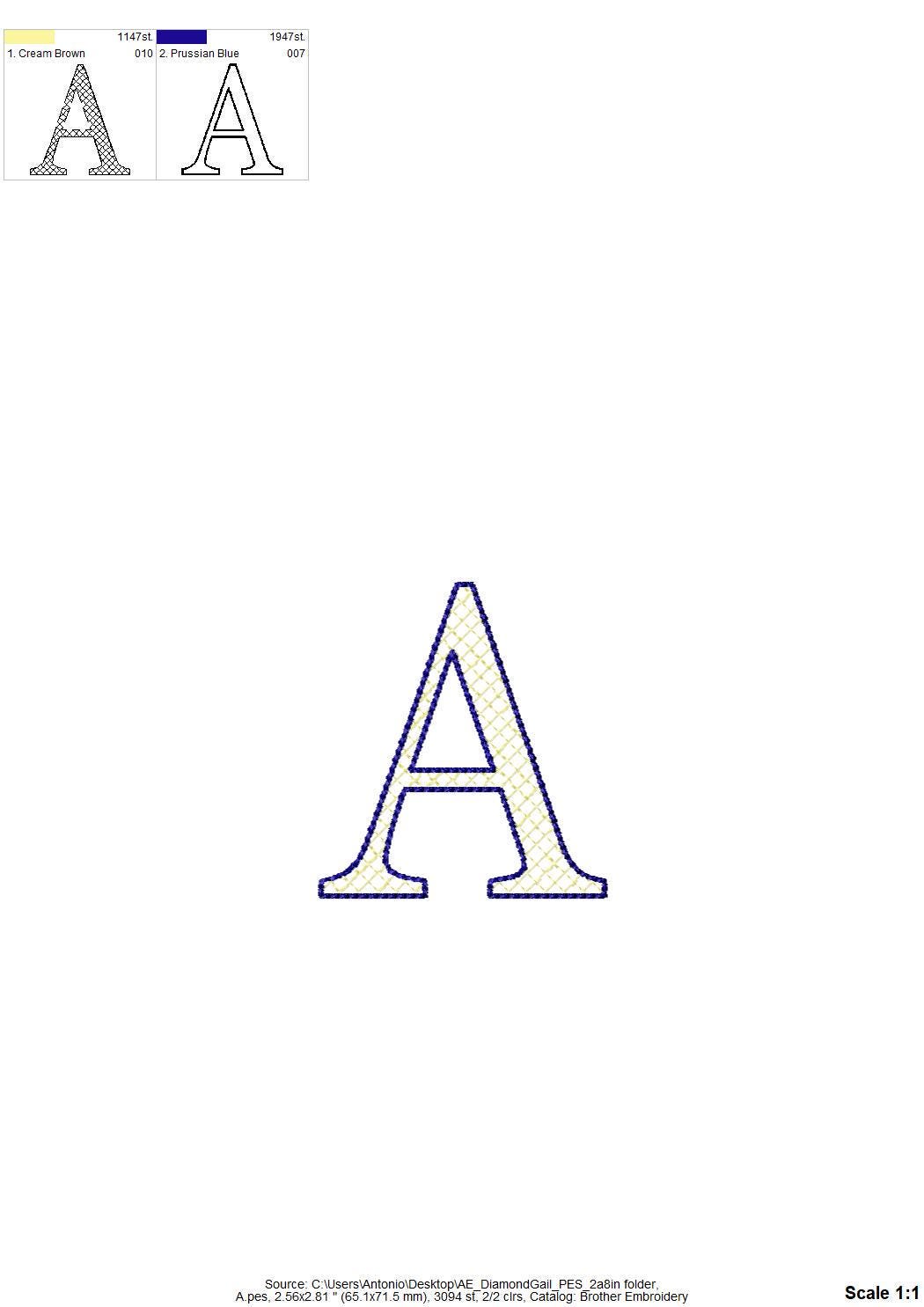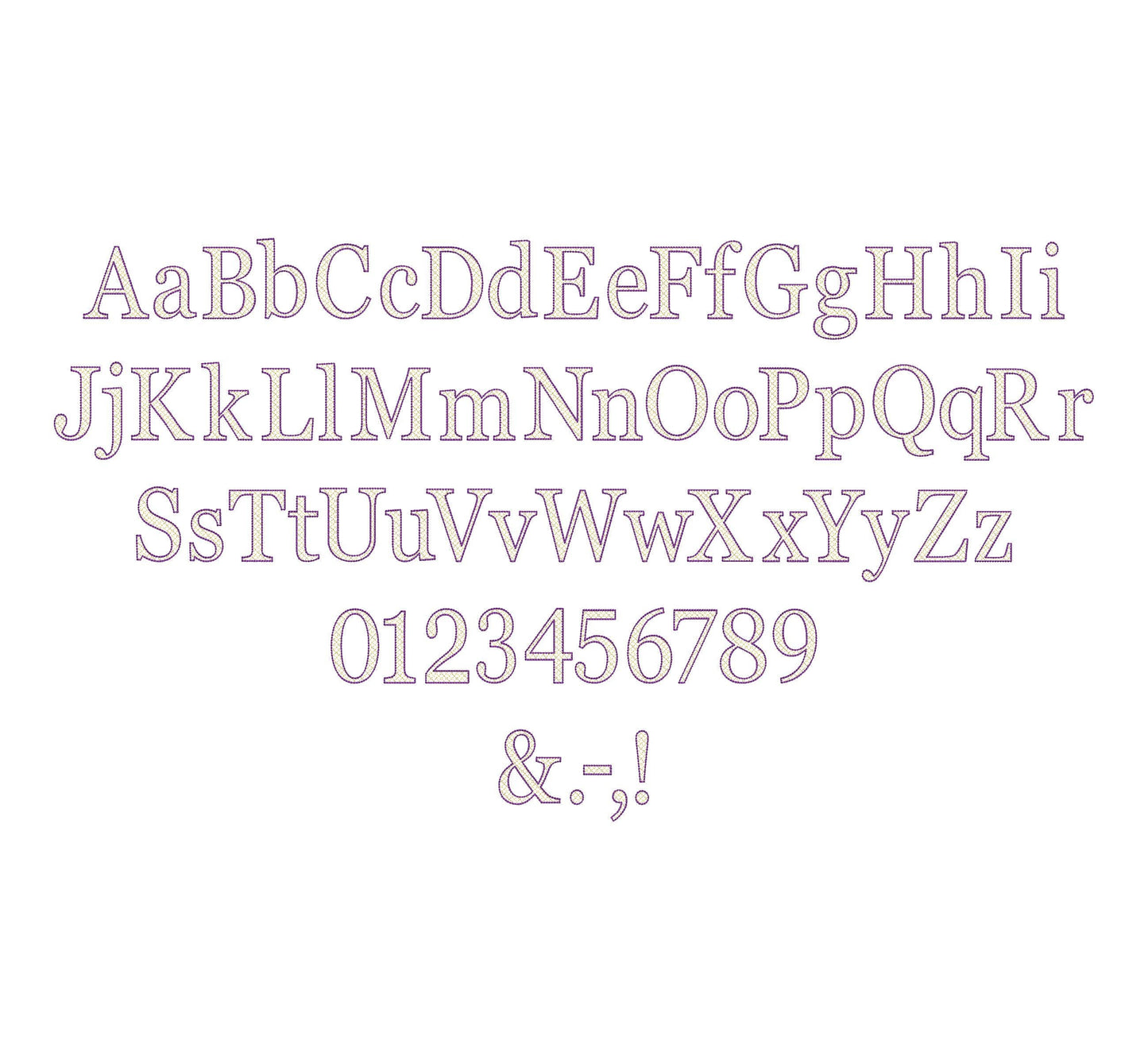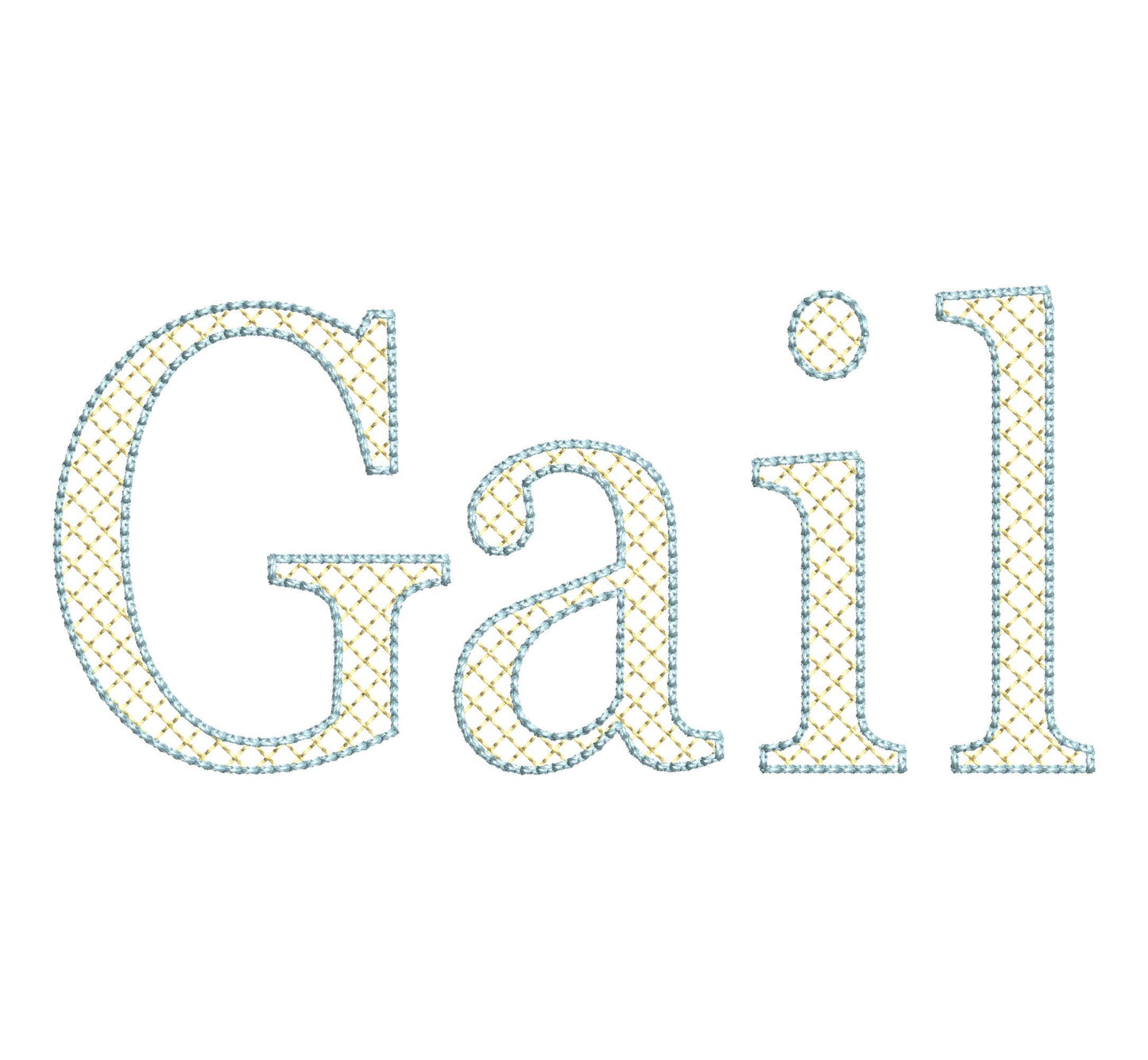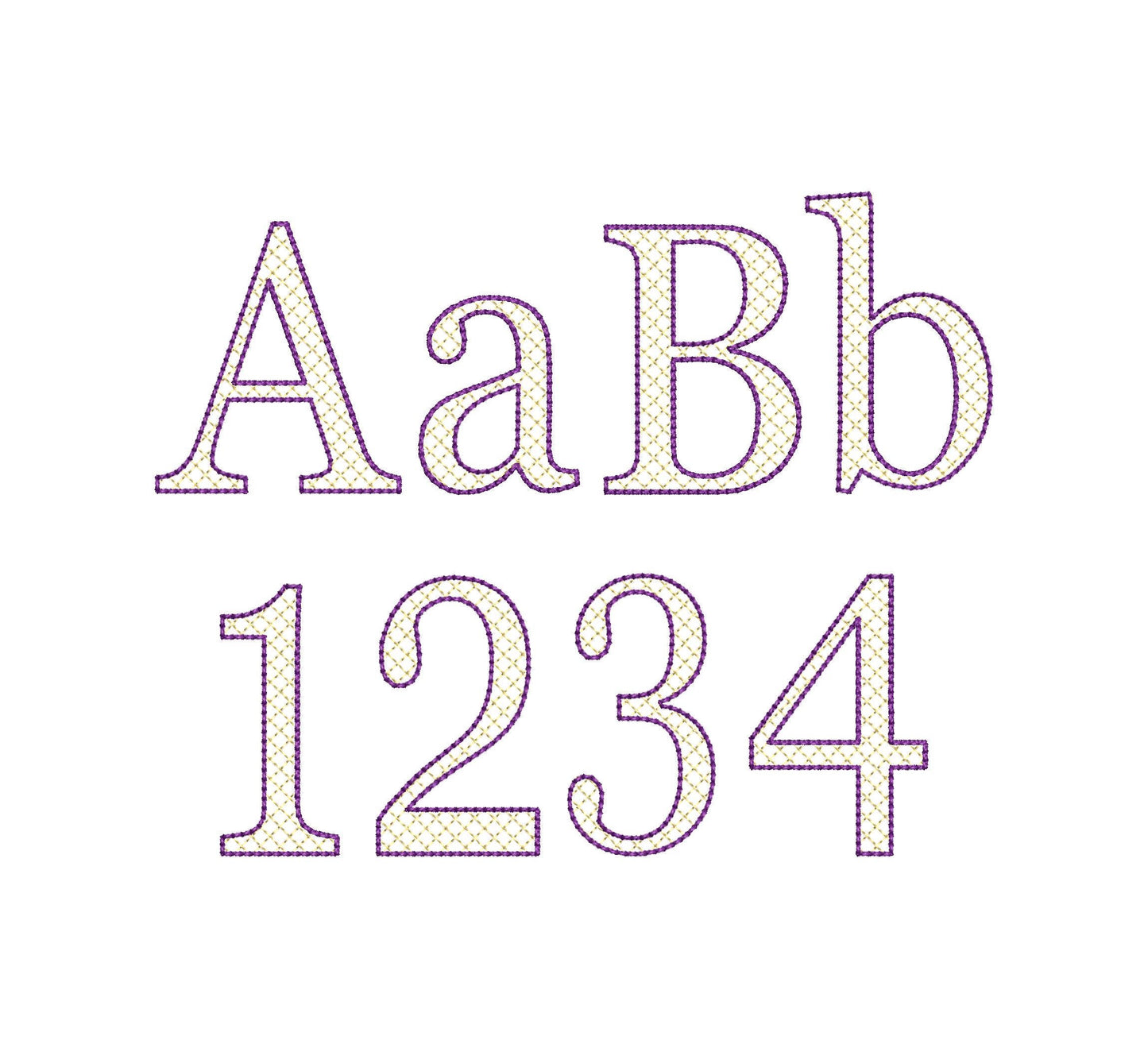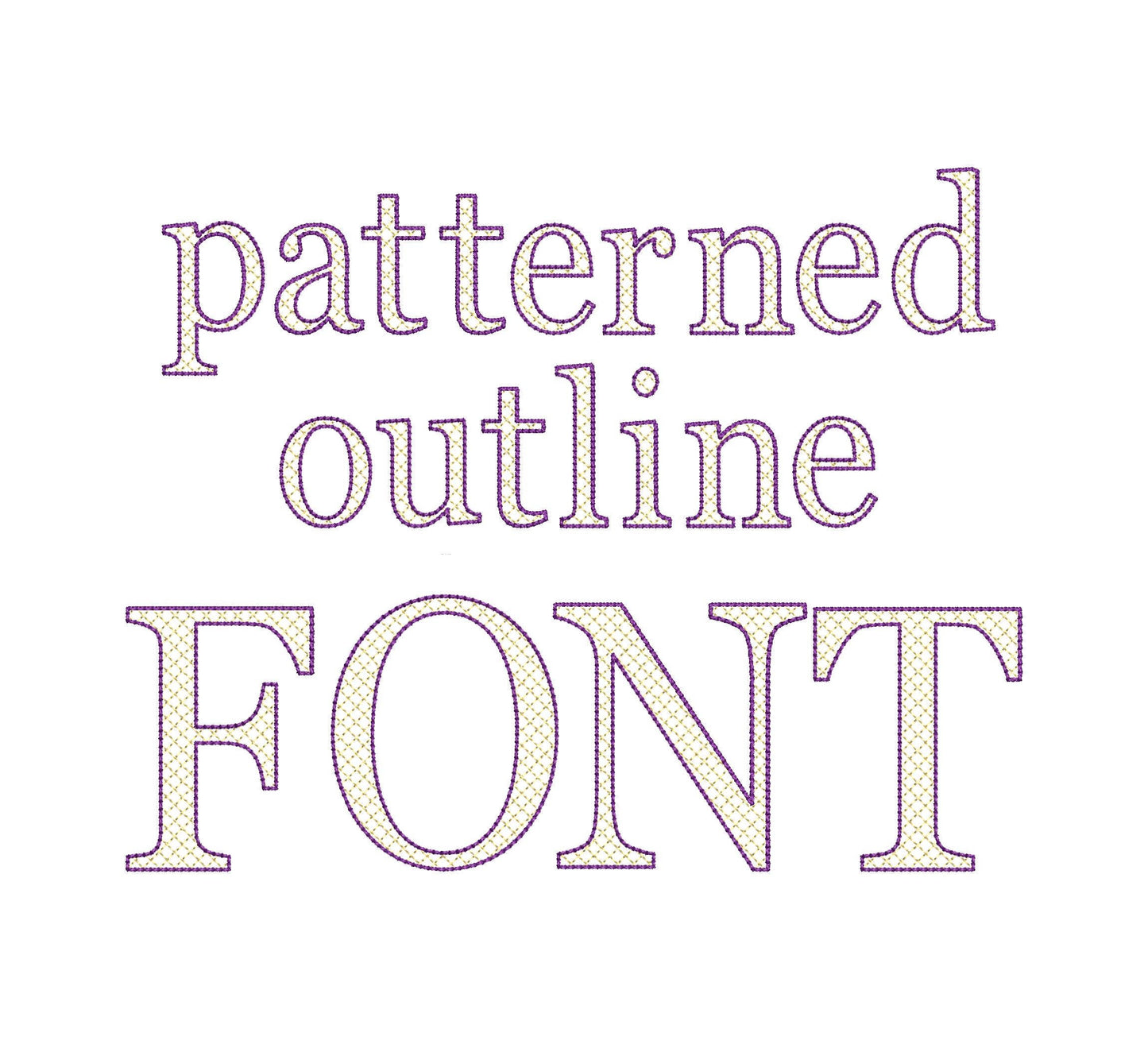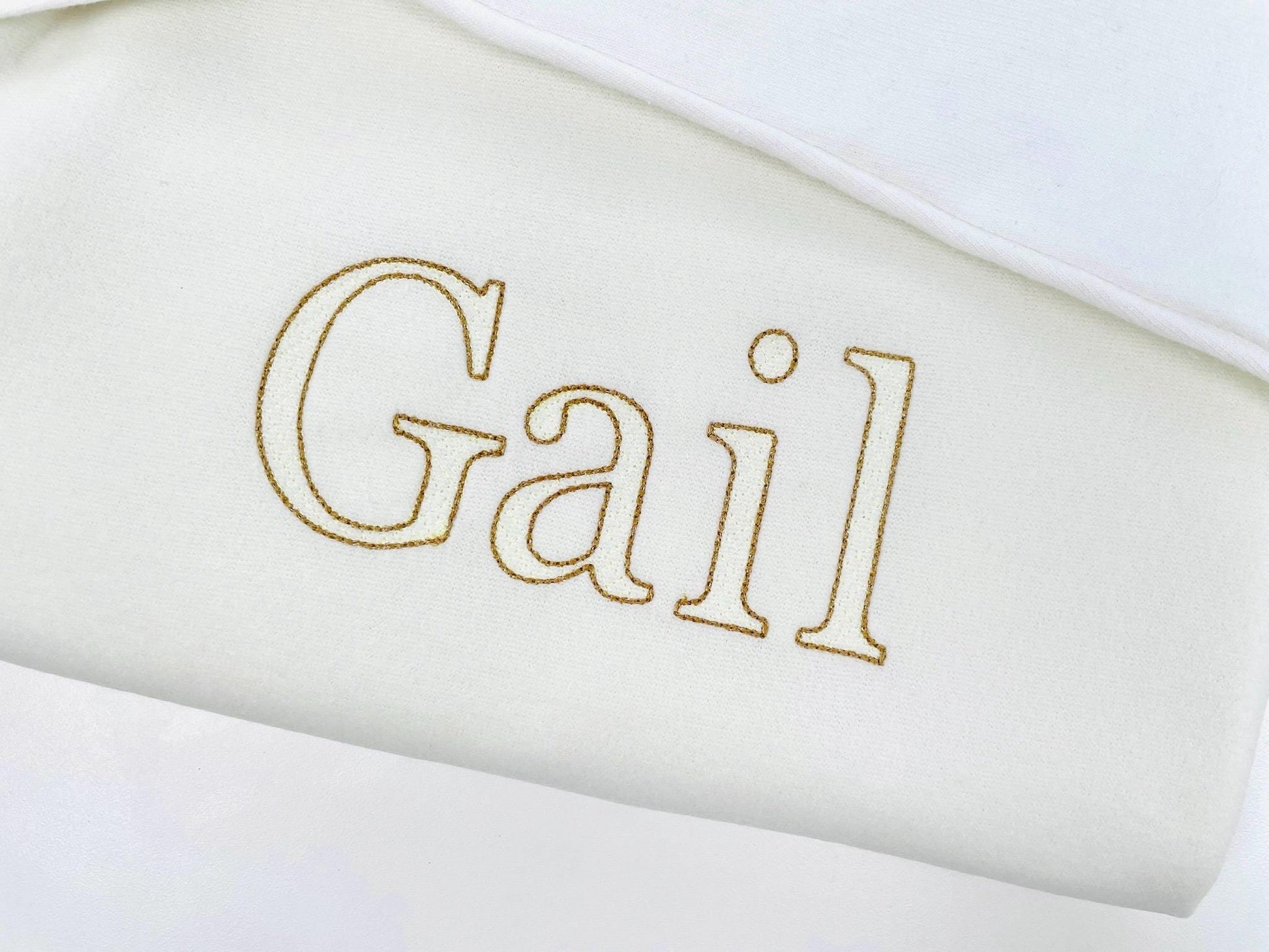
Elegant Diamond Font Gail
Or click to open the linkAn elegant varsity block font with a diamond quilt pattern and a bean stitch outline. Great for monograms, team names, jackets and pillows.
The letters come in five sizes: 1.6, 2, 2.4, 2.8 and 3.4 inches. A light quilted diamond pattern fills each letter, so the fabric shows through, and a bean stitch outline frames it. Includes uppercase and lowercase letters, numbers 0 to 9 and punctuation.
- Diamond quilt varsity block font, bean stitch outline
- 5 sizes, 1.6 to 3.4 in